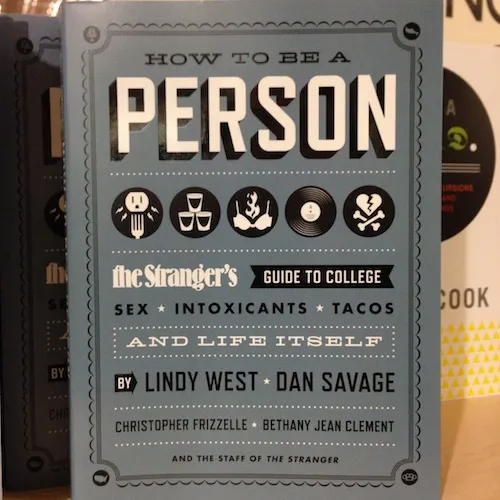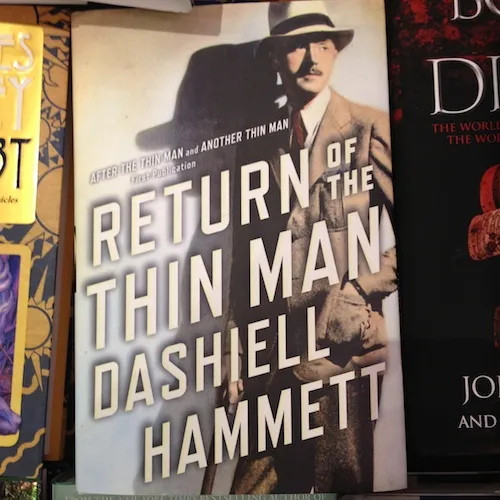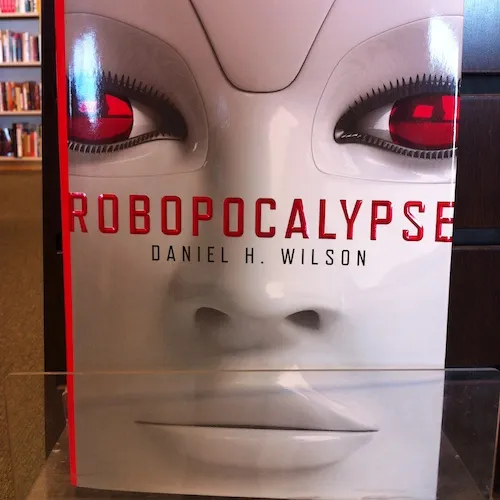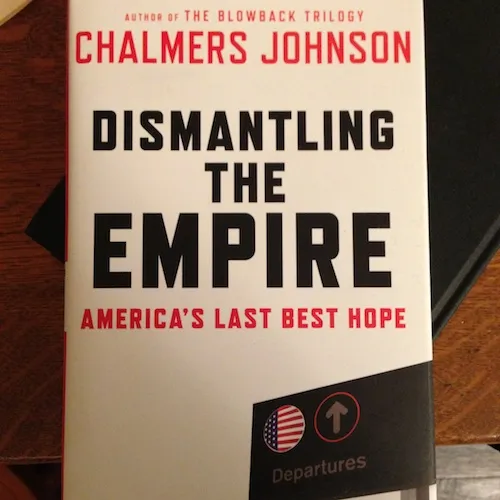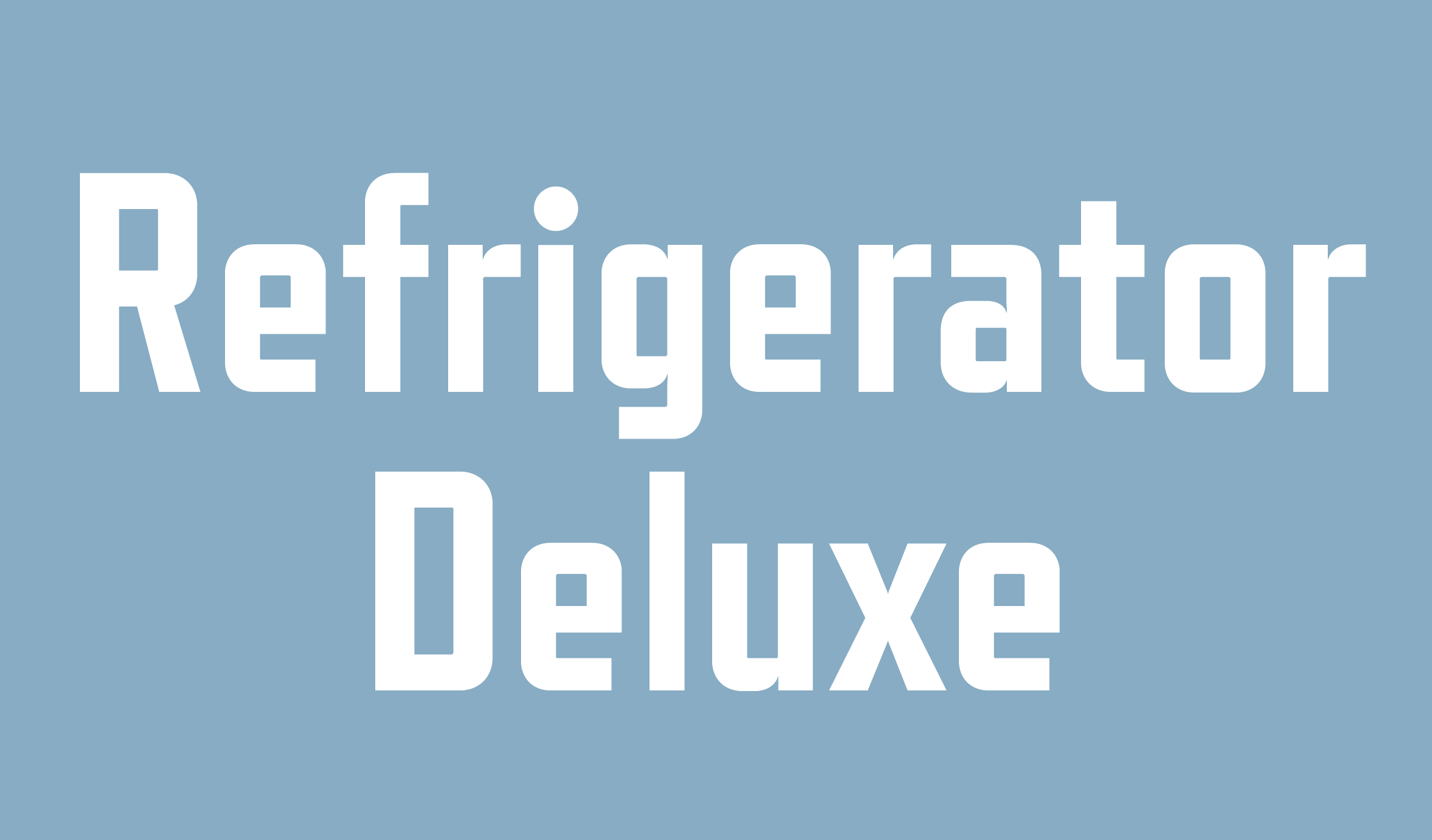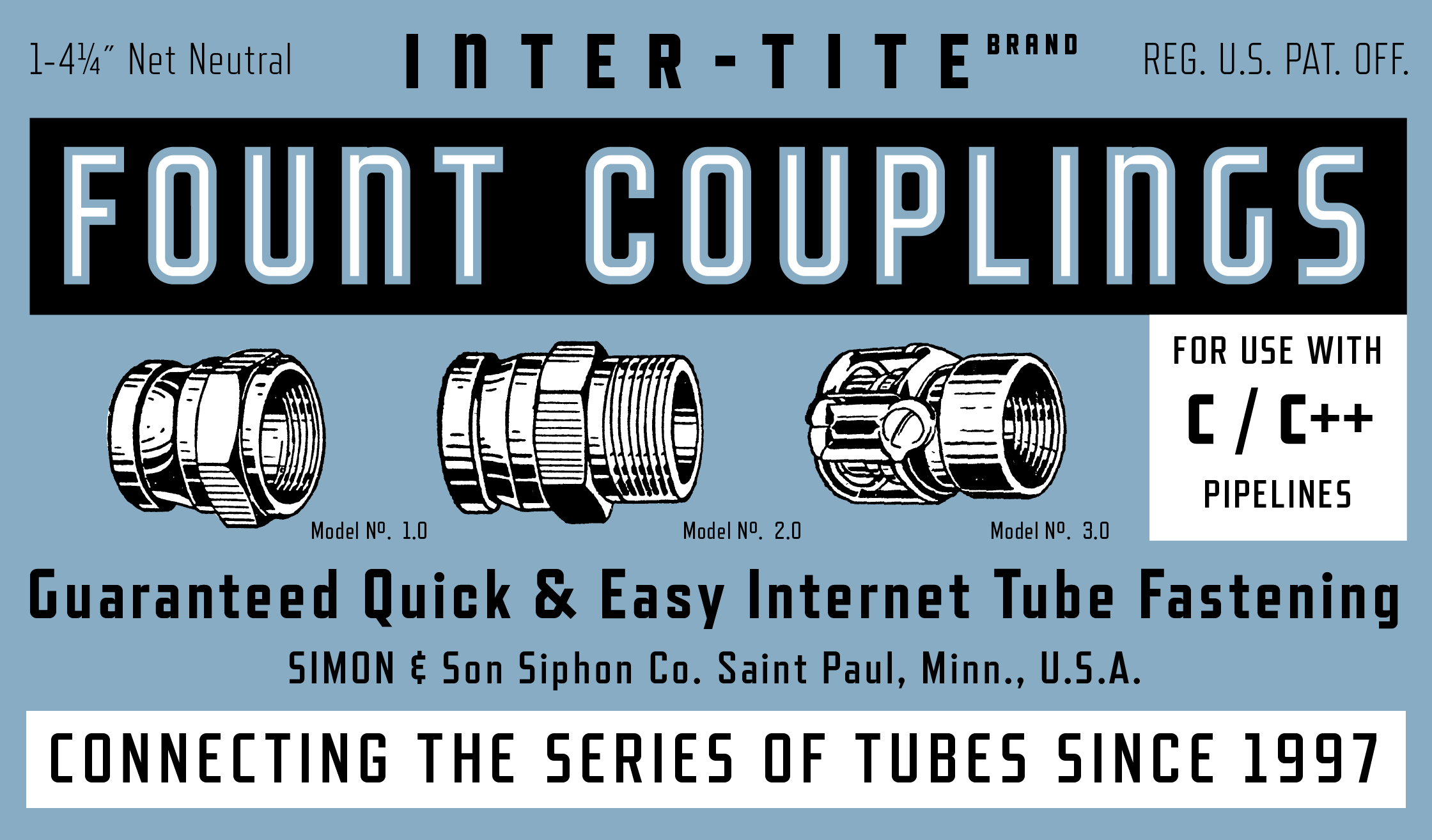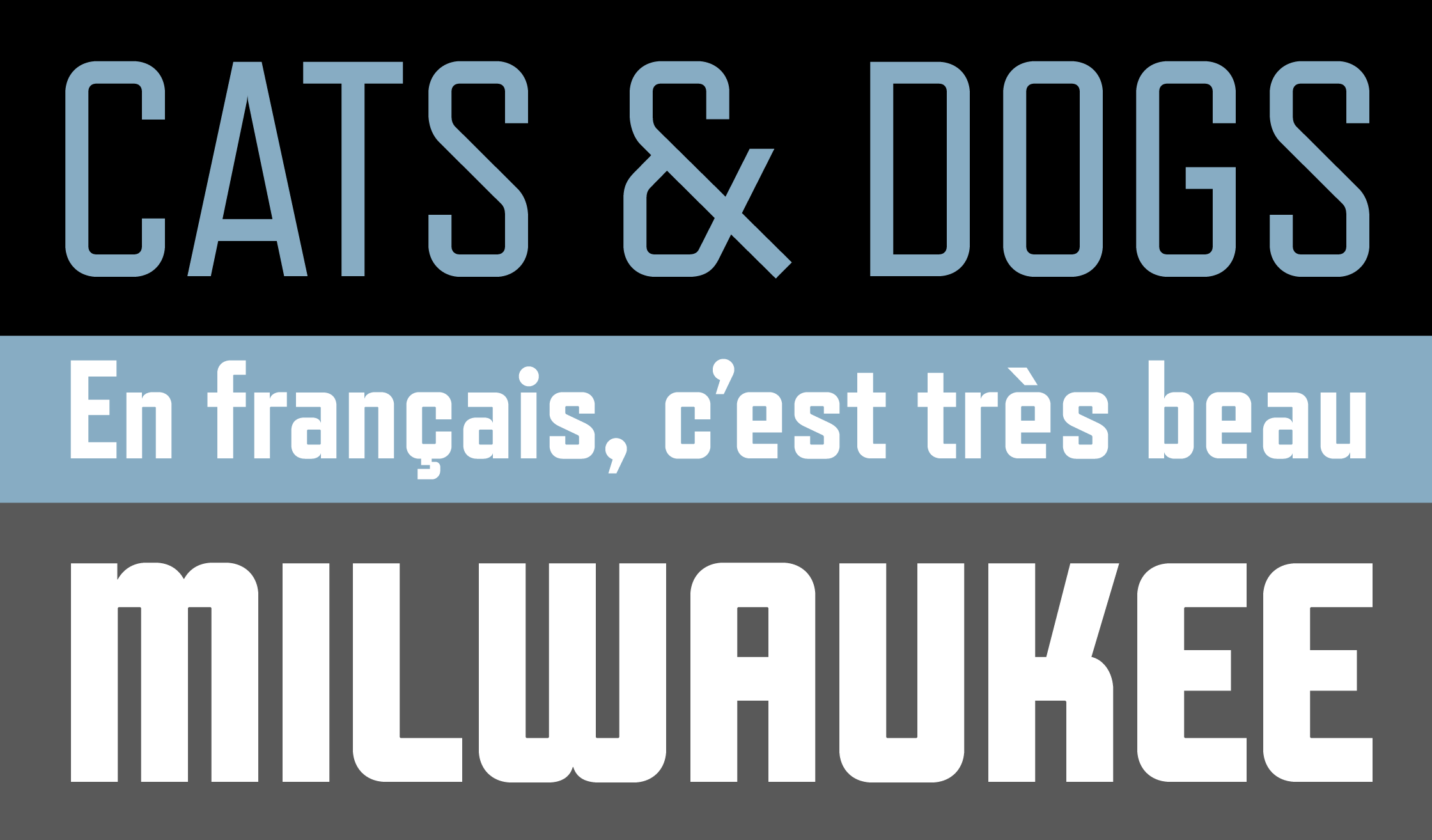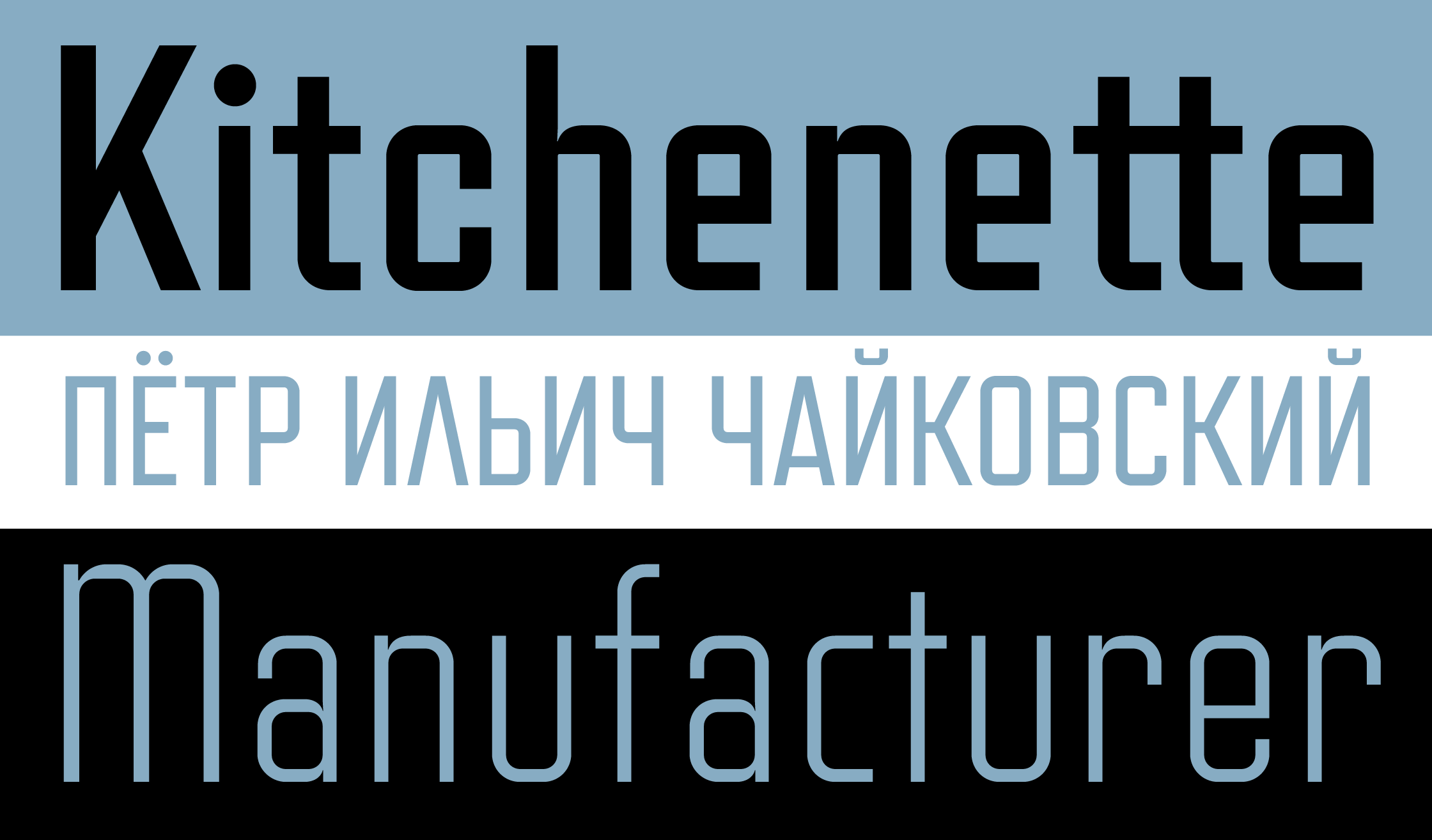
Refrigerator Deluxe (2008) was inspired by generic block-style lettering typical of the mid-20th century. It follows the typical American model that can be seen in old lettering manuals, although I designed it purely from memory. I originally released it in 2000 as Refrigerator, with just the Bold weight. In 2003, I added Light and Heavy. Refrigerator Deluxe adds a new weight (Regular) and loads of alternate characters that can be used to create common variations of the block letter style on which it is based.
Refrigerator Deluxe Features
- Alternate characters.*
- 20 stylistic sets for enhanced access to the many alternate characters.*
- Ligatures, including things like tt and ff.
- Support for Cyrillic, including alternate characters.*
- Case-sensitive forms.*
- Automatic, arbitrary fractions.*
- Support for superscript and subscript.
- Extended language support for most Latin-based Western and Central European languages.
- Localizations for acute ij in Dutch, capital sharp S in German, Cyrillic variants for Bulgarian and Serbian, and arbitrary accents* (mark-to-base and mark-to-mark).